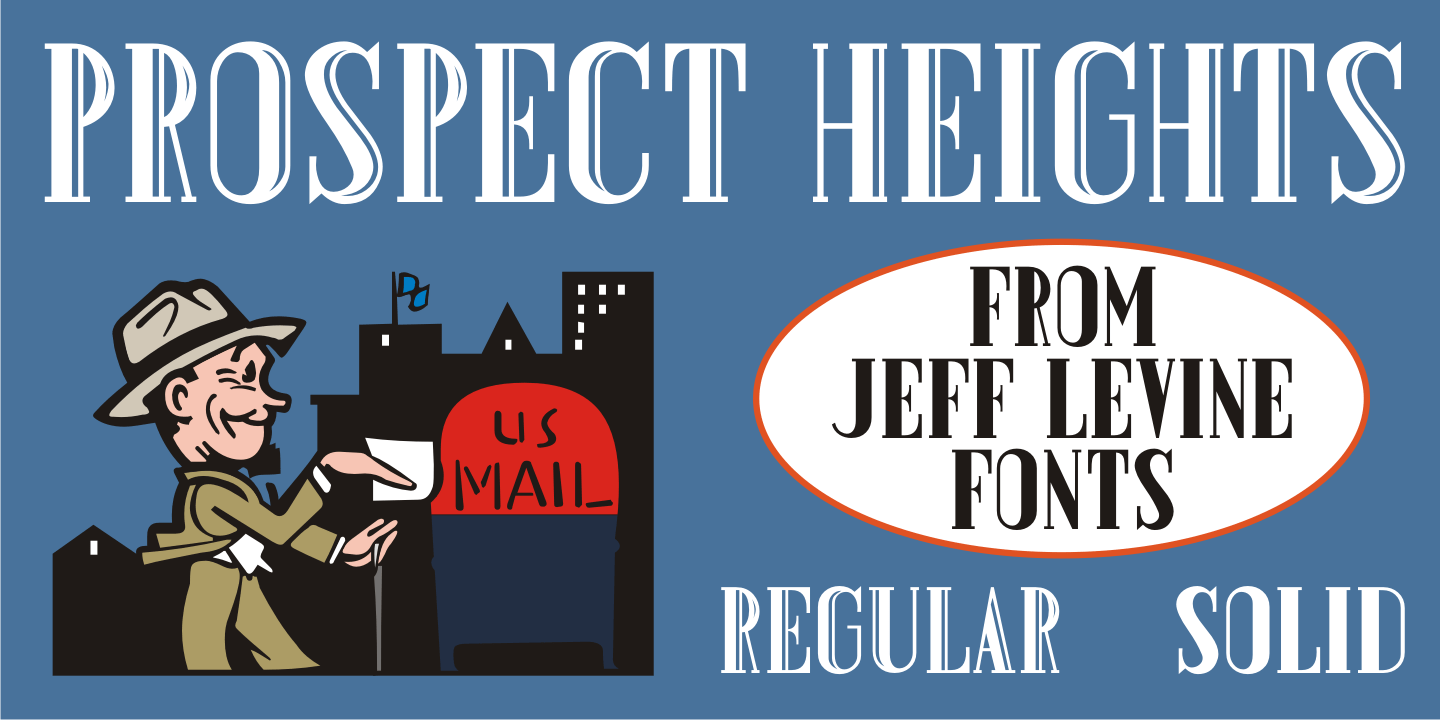
Prospect Heights
Buy NowWhile the inspiration for Prospect Heights JNL may have been a piece of vintage sheet music entitled 'My Ohio Lullaby', the name is classically New York. To be precise, it's a neighborhood in the Borough of Brooklyn.
Prospect Heights JNL is available in both the regular version (with an engraving line) and a solid (plain) version.